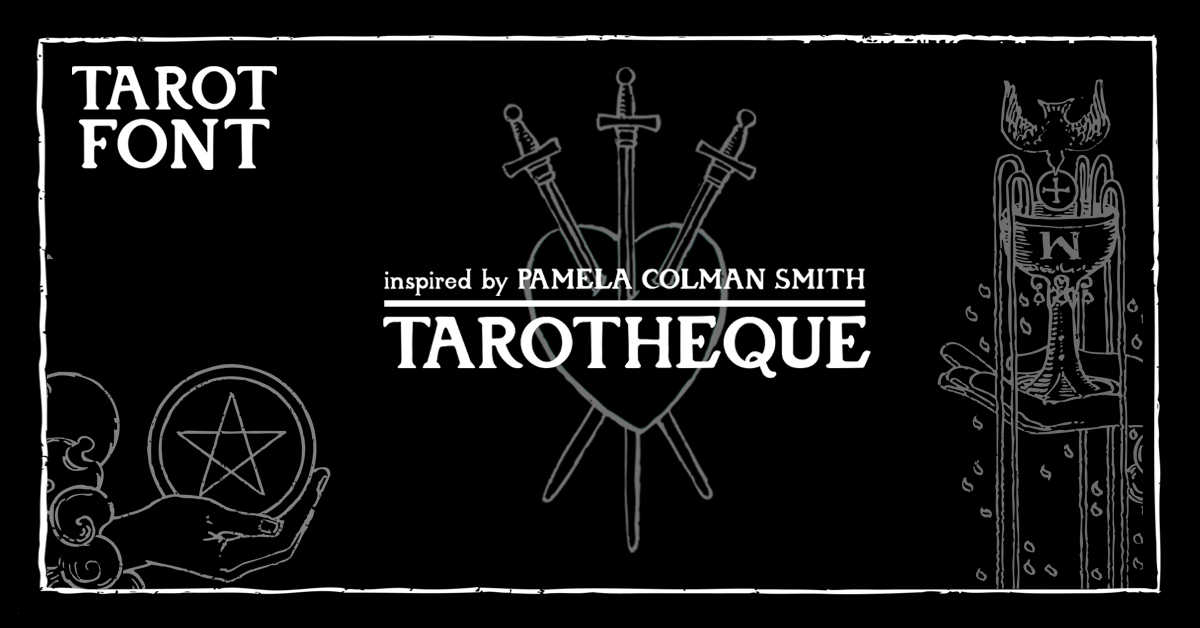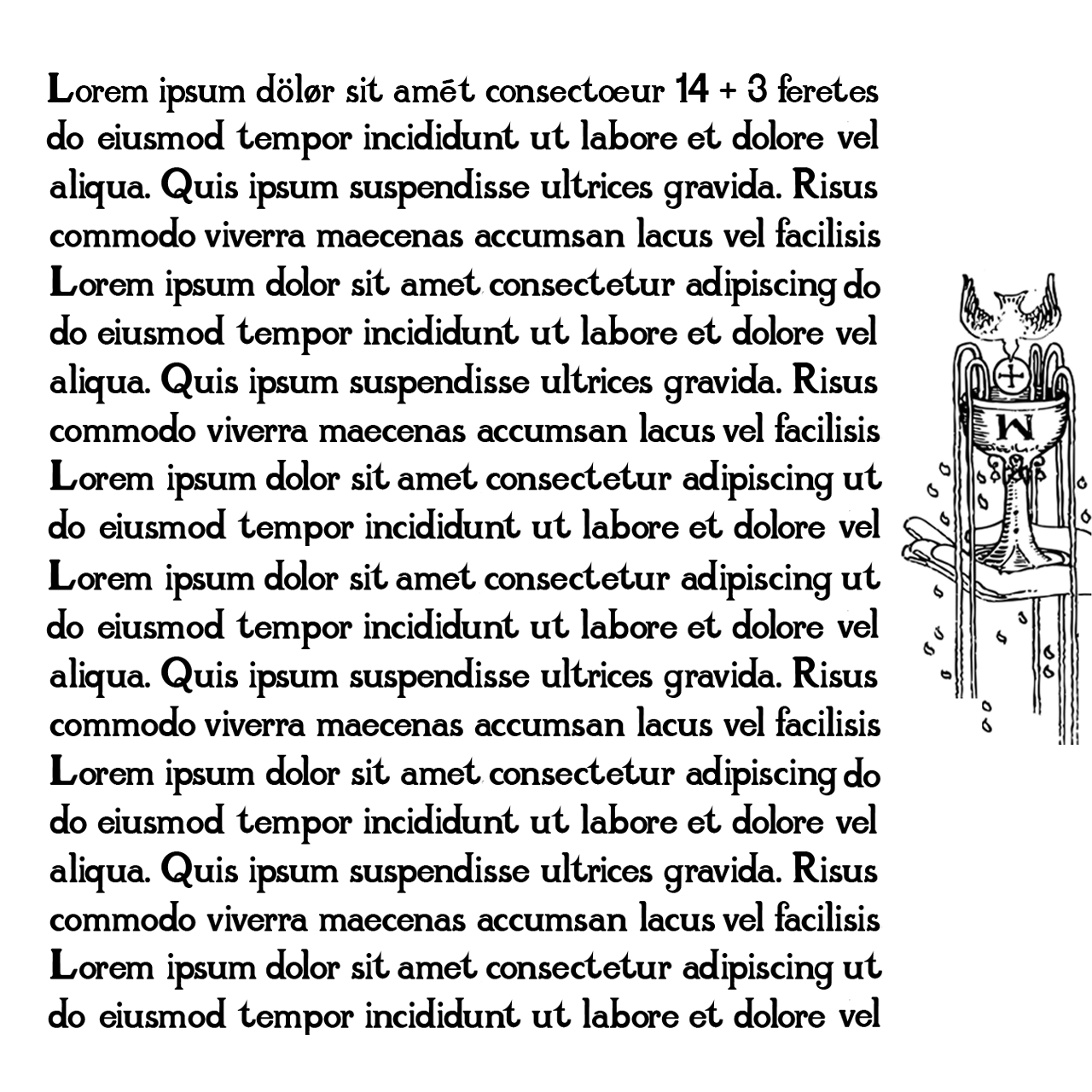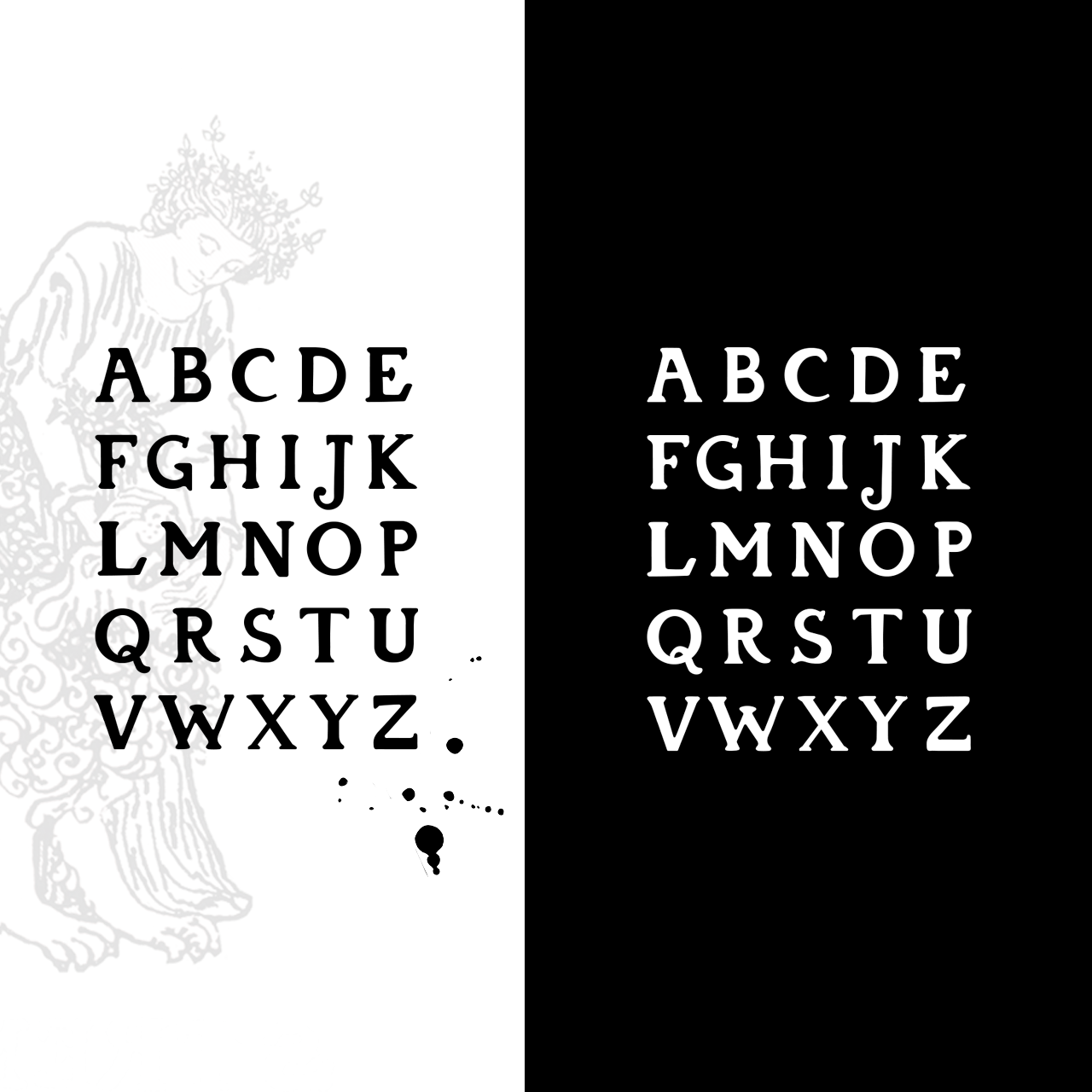
Tarot Font Tarotheque
Unveil the mystique of your text with a font that echoes the timeless enchantment of the Waite Tarot. Inspired by Pamela Colman Smith, this typeface embodies a delicate balance of elegance and arcane wisdom, bringing a touch of the arcane to every letter.